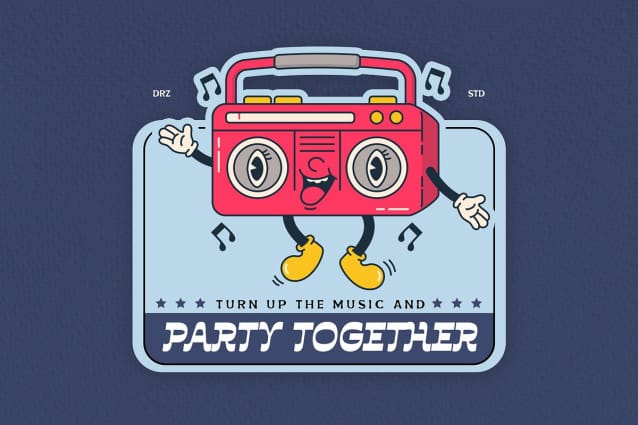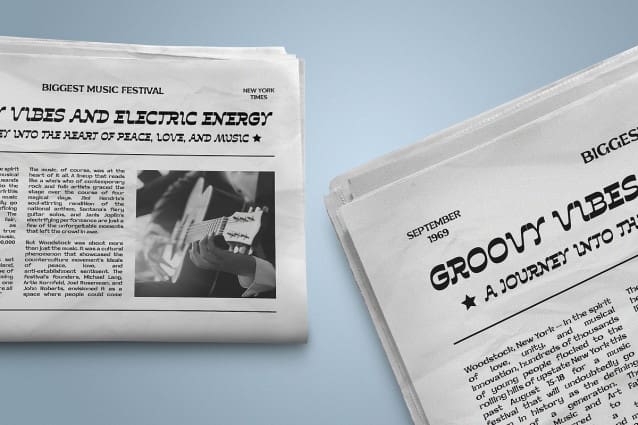
Riffgate Display Font
Riffgate Display Font A Retro Italic Font combines the classic and timeless appeal of retro design with a slanted or italicized style, bringing a unique and nostalgic twist to text.